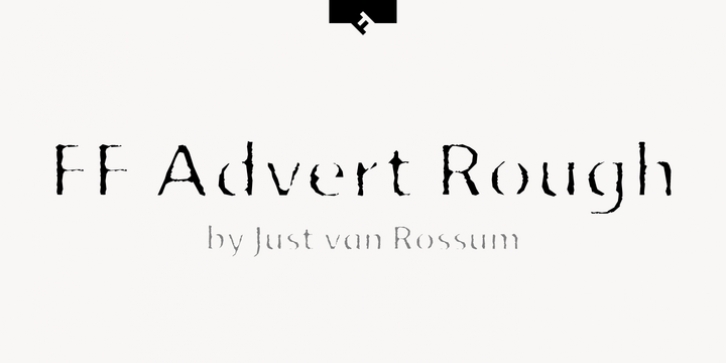
Publisher: FontFont
Dutch type designer Just van Rossum created this display and sans FontFont in 1992.
The family has 5 weights, ranging from One to Five and is ideally suited for advertising and packaging, film and tv, music and nightlife as well as poster and billboard projects.
FF Advert Rough provides advanced typographical support with features such as ligatures, alternate characters, case-sensitive forms, fractions, super- and subscript characters, and stylistic alternates.
It comes with a complete range of figure set options – oldstyle and lining figures, each in tabular and proportional widths.
This FontFont is a member of the FF Advert super family, which also includes FF Advert.